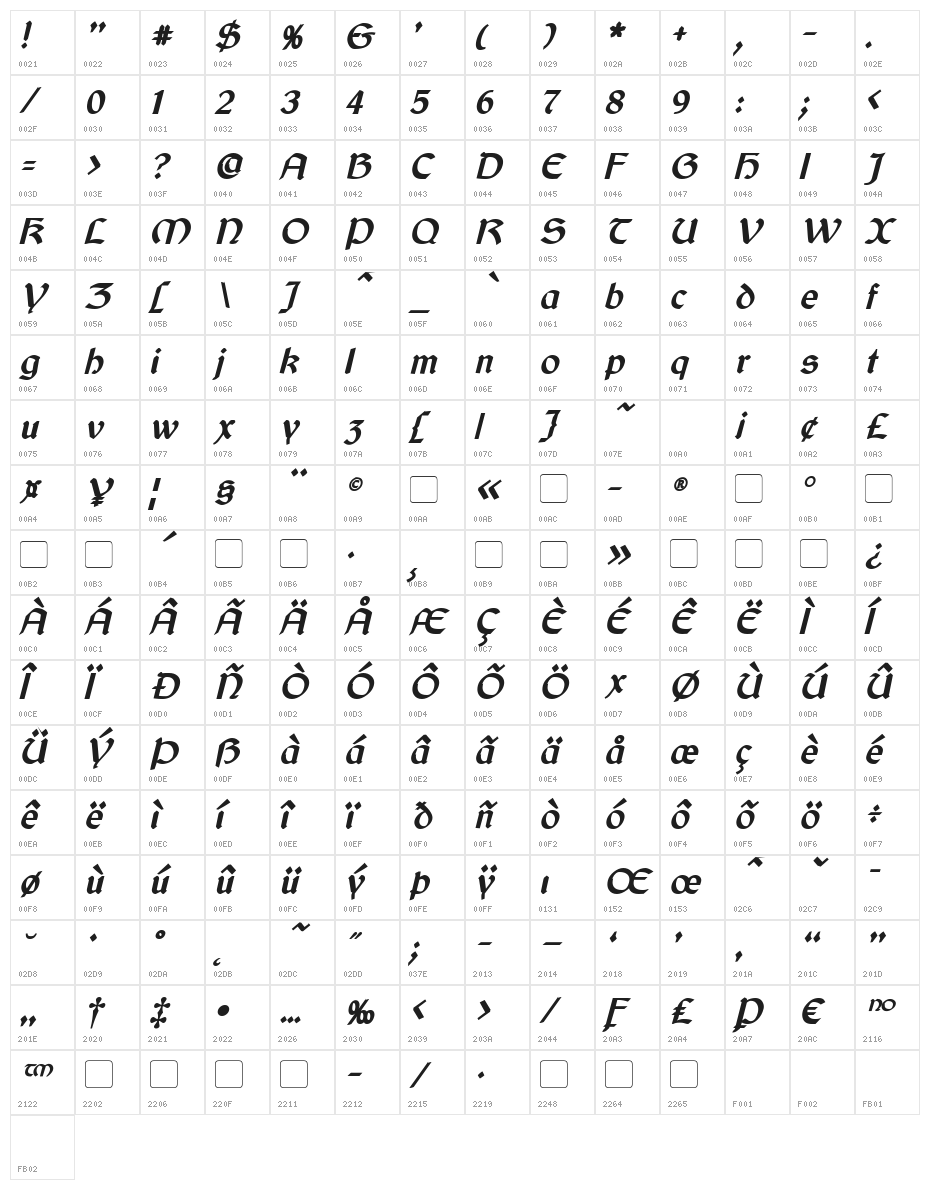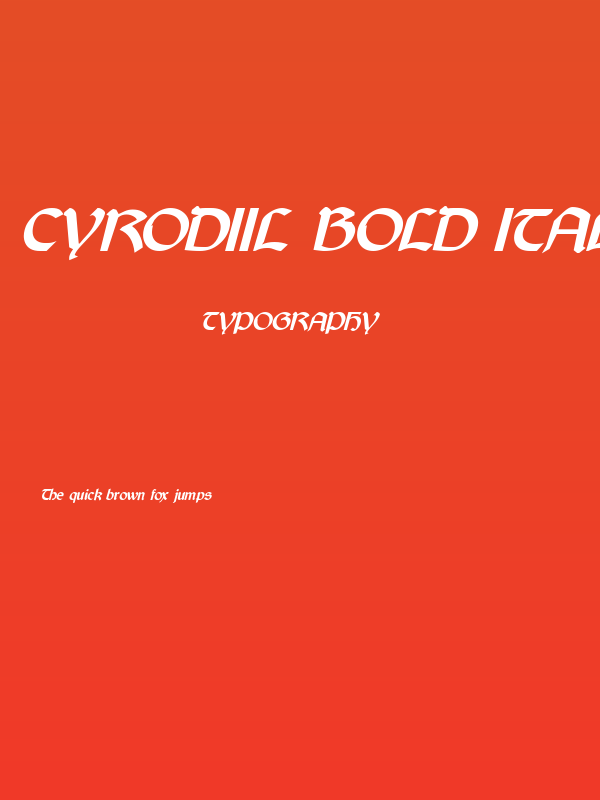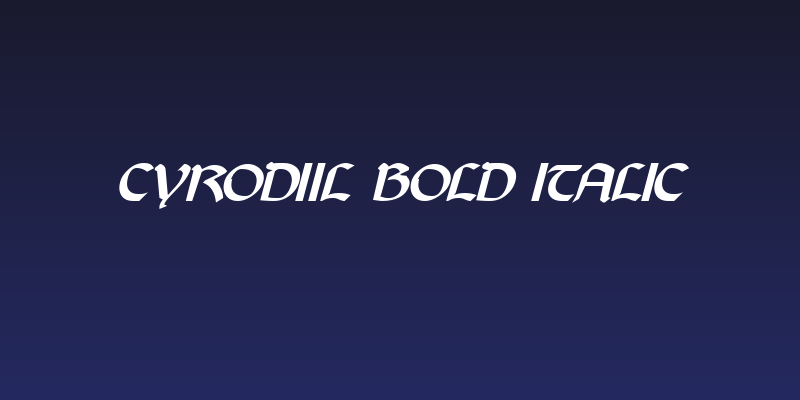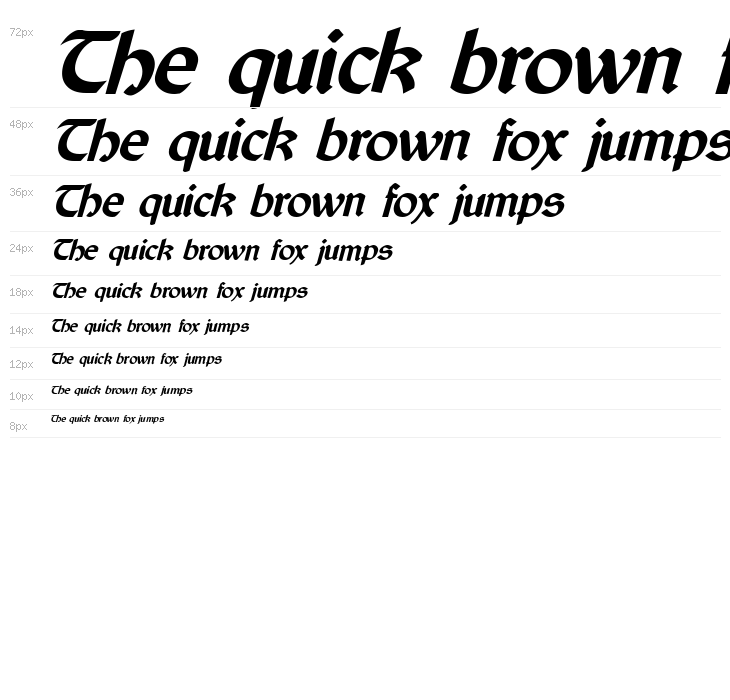
Cyrodiil Bold Italic Font
Cyrodiil Bold Italic Description
This font features a bold and italicized style with a distinct calligraphic influence. The characters exhibit a dynamic flow, with sharp angles and smooth curves that create a sense of movement and elegance. The uppercase letters are particularly striking, with their elongated forms and pronounced serifs, while the lowercase letters maintain a cohesive and harmonious appearance. The numerals are consistent with the overall style, offering a bold presence. Special characters are designed to complement the alphabet, maintaining the same stylistic elements.
| Proposed Projects | Ideal for projects that require a dramatic and elegant touch, such as invitations, branding, and editorial design. |